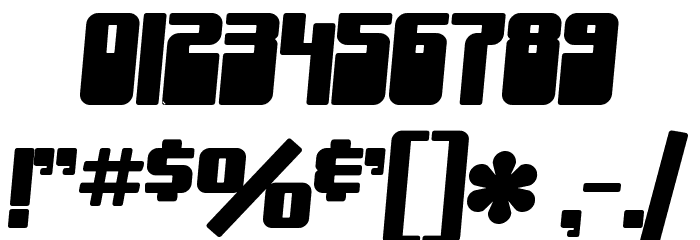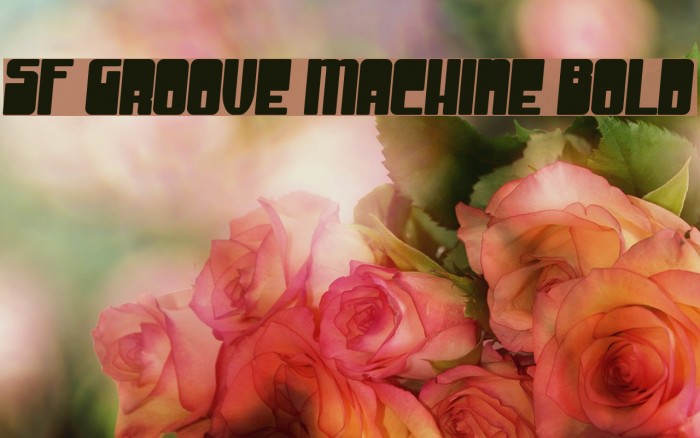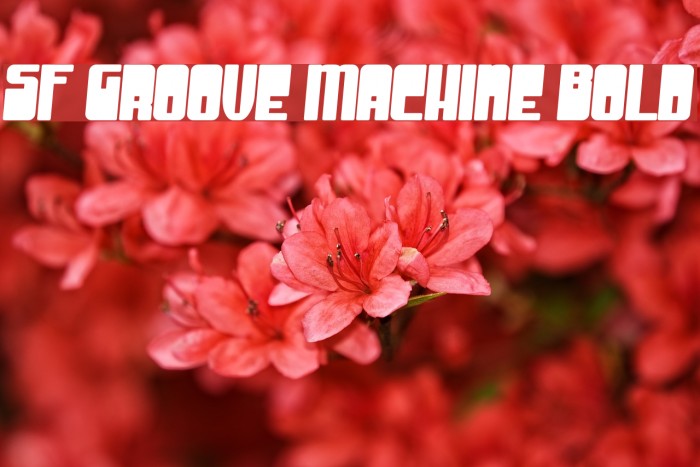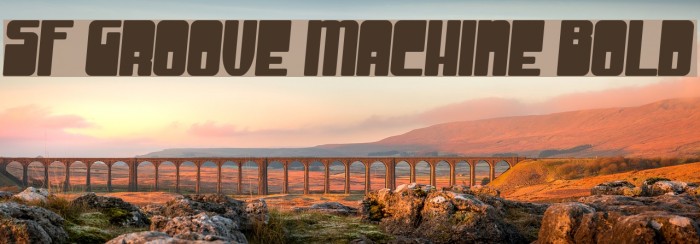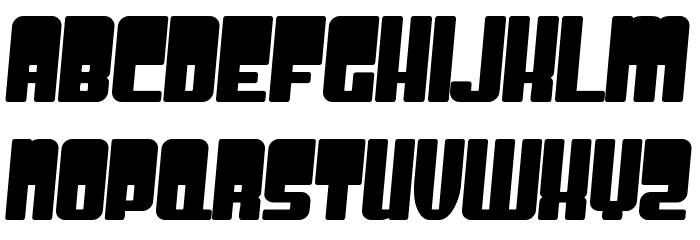
SF Groove Machine Bold Font
SF Groove Machine Bold Description
This font features a bold and dynamic style with thick, blocky characters that convey a sense of strength and modernity. The letters are uniformly wide, with rounded edges that soften the overall appearance, giving it a slightly futuristic feel. The characters are tightly spaced, enhancing the compact and impactful look. The numbers and special characters maintain the same boldness, ensuring consistency across all glyphs. This font is ideal for projects that require a strong visual presence, such as posters, headlines, and branding materials.
A bold, modern font with thick, blocky characters and rounded edges from Retro fonts.
- Proposed Projects: Ideal for posters, headlines, branding, and any design needing a strong visual impact.
- Character Spacing: Tight